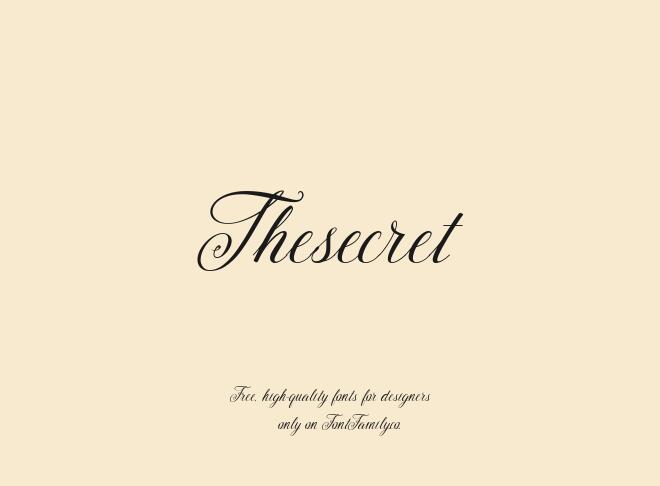
Thesecret Font
Introducing Thesecret Font, a playful yet modern script font with a handwritten touch. Designed by John Doe Design, this font is a perfect blend of classic script and modern handwriting, making it an excellent choice for a variety of design projects. Thesecret Font stands out with its unique character shapes and fluid curves, reminiscent of playful handwriting. Despite its playful nature, Thesecret Font maintains a sense of professionalism, making it ideal for branding, logo design, stationery, and packaging. Its modern script style is comparable to popular fonts like Brush Script and Mistral, but with a more playful twist. The versatility and unique style of Thesecret Font make it a must-have for designers. Download it for free and start creating eye-catching designs today.